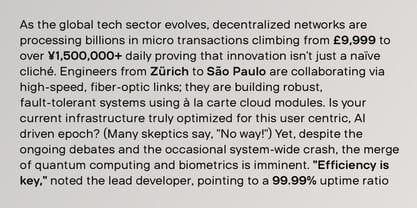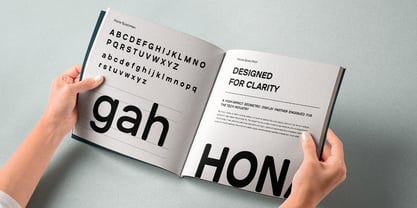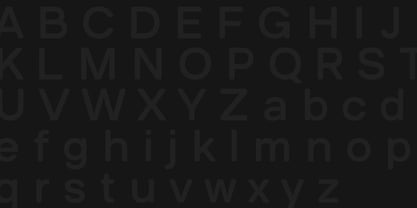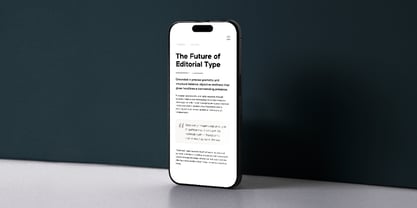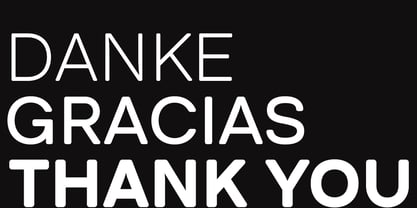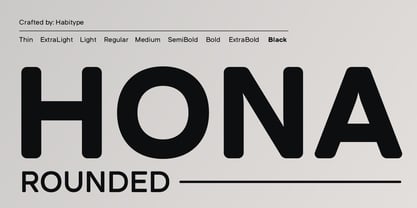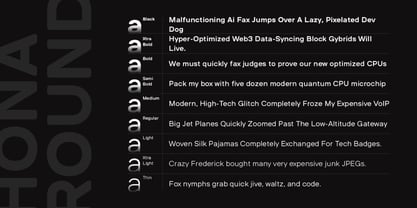
Hona Rounded
par Habitype
La famille de polices Hona Rounded a été conçue par Fahrul Saputra et publiée par Habitype. Hona Rounded contient 8 styles et options de package familial. En savoir plus sur cette famille
Hona Rounded is a combination of highly legible, reliable structure of a professional workhorse font with a smooth, precisely crafted rounded corners. In a tech and corporate landscape saturated with rigid, geometric sans serifs, standing out requires more than just another clean typeface.
Hona Rounded is a typeface that perfectly balances clarity with character. It sheds plain formality, bringing a sense of novelty, warmth, and approachability to your designs without sacrificing an ounce of professionalism. It’s has wide variety of weight from thin to black ready to cover all of you design needs.
Concepteurs: Fahrul Saputra
Fonderie: Habitype